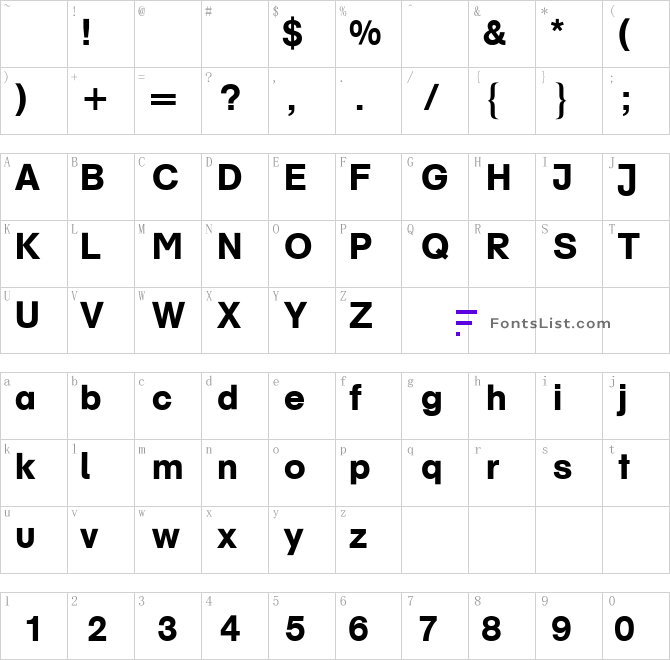
- Font Name:AG Schulbuch BQ
- Full Name:Akzidenz-Grotesk (R) Schulbuch Medium
- PostScript:AGSchulbuchBQ-Medium
Akzidenz-Grotesk-R-Schulbuch-Medium-copy-1-.ttf is a very beautiful artistic font, Akzidenz-Grotesk-R-Schulbuch-Medium-copy-1-.ttf is widely used in the design and printing of various books and pictures,Akzidenz-Grotesk-R-Schulbuch-Medium-copy-1-.ttf has a strong visual impact,Akzidenz-Grotesk-R-Schulbuch-Medium-copy-1-.ttf is a commonly used font in newspapers, magazines and books, and is used in posters, e-commerce Poster design, store design, logo design, font design and other fields.Akzidenz-Grotesk-R-Schulbuch-Medium-copy-1-.